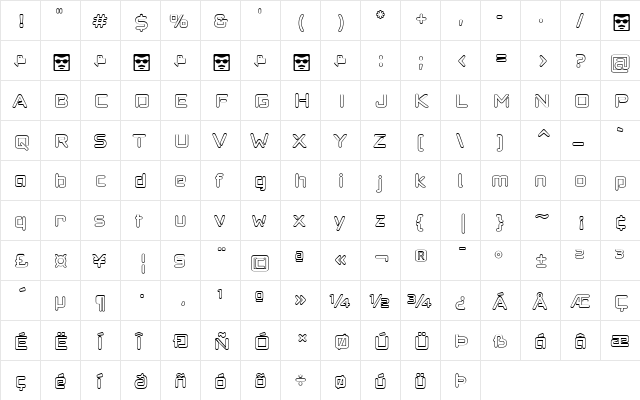
Anoxic Outline Med Regular
Design Context for Anoxic Outline Med Typeface
Anoxic Outline Med is built around its visual character rather than neutral utility — its distinctive forms are designed to make an impression at display sizes.
Font Pairing: Pair with a clean neutral sans-serif for body copy to let Anoxic Outline Med's character lead without overwhelming the composition.
Pro Tip: Treat Anoxic Outline Med as the centrepiece of your typographic hierarchy. One strong heading set in a decorative face can carry an entire layout.